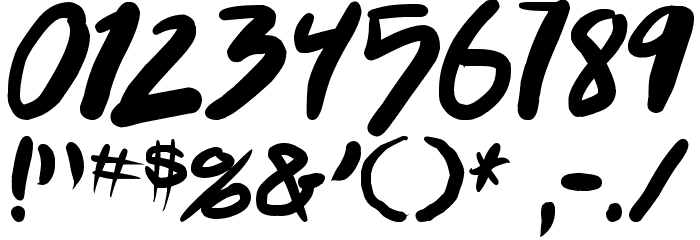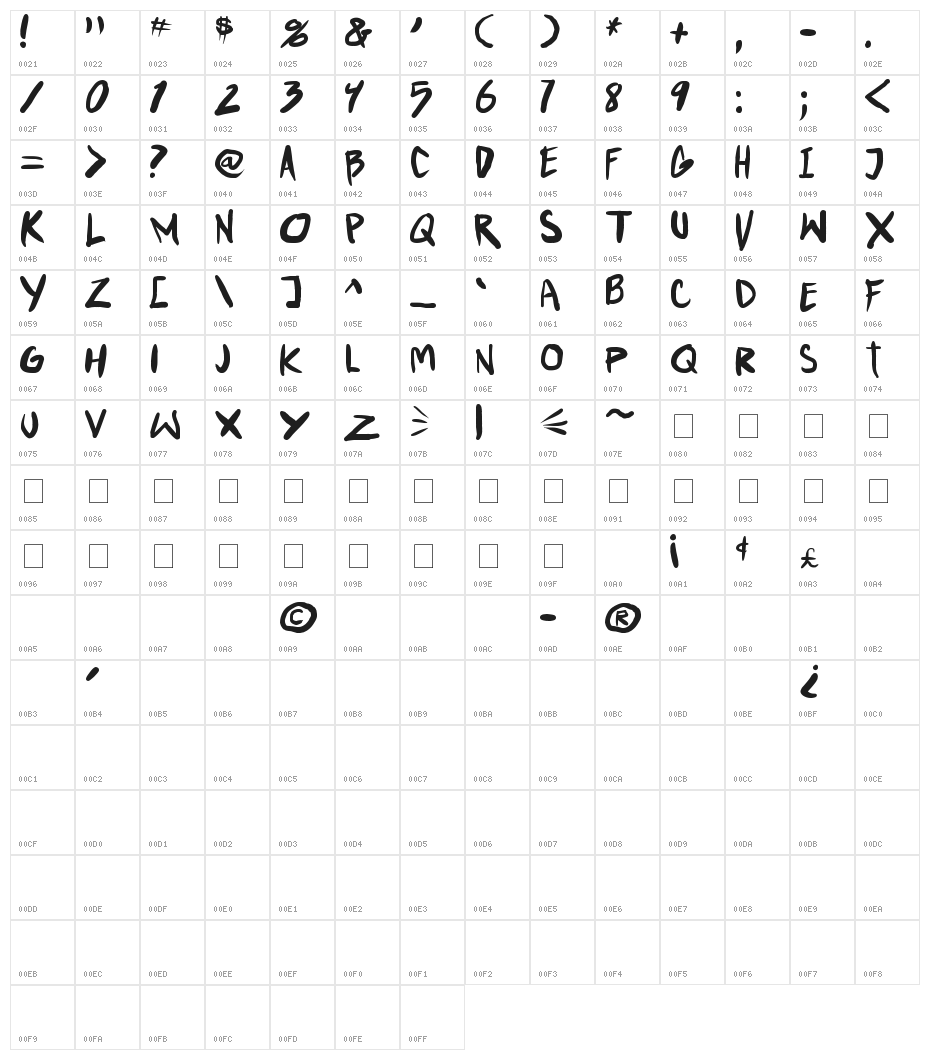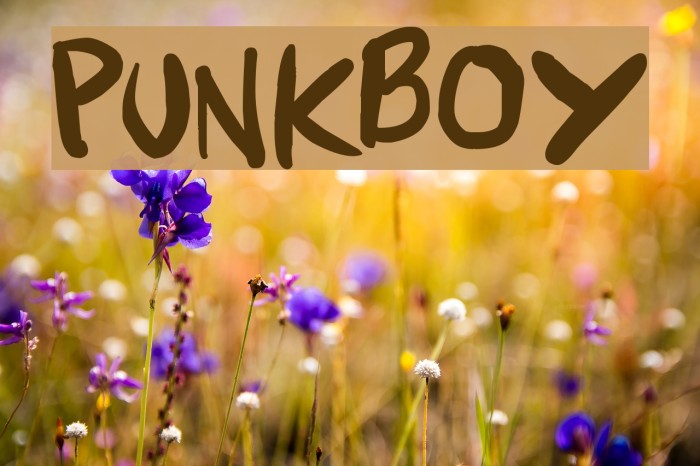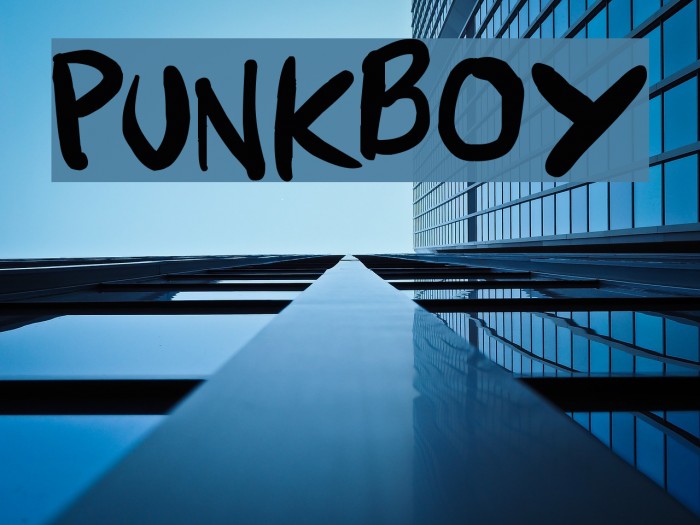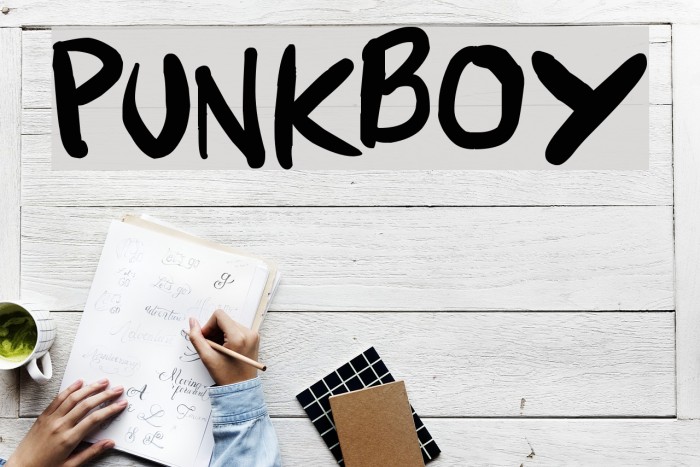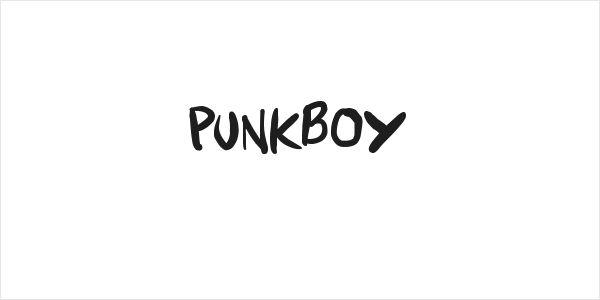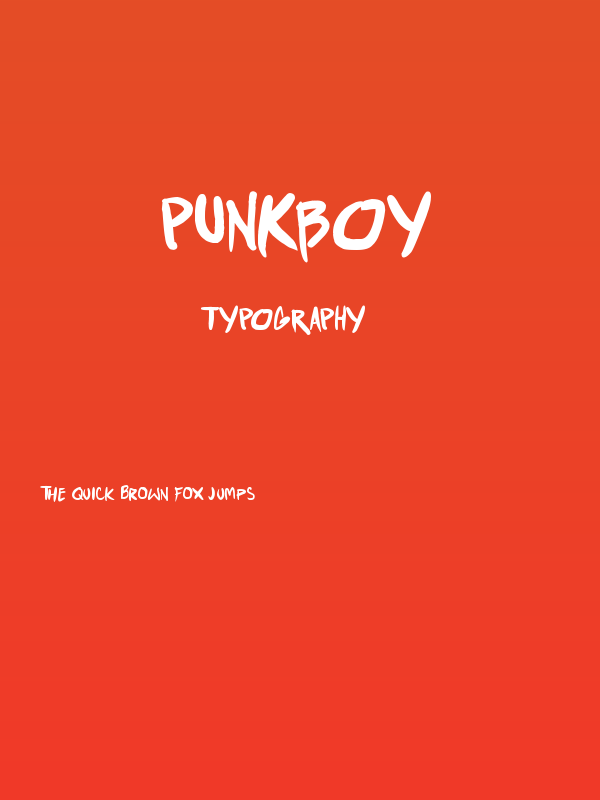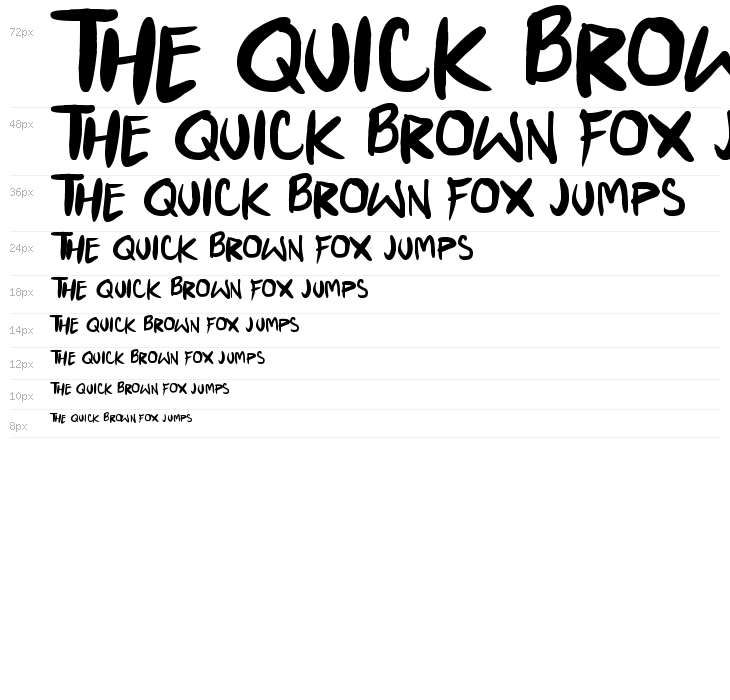
Punkboy Font
Punkboy Description
This font exudes a bold and rebellious energy, characterized by its thick, uneven strokes and dynamic, hand-drawn appearance. The letters have a raw, edgy feel, reminiscent of graffiti or street art, making it perfect for projects that require a touch of urban flair. The uppercase and lowercase letters maintain a consistent style, with exaggerated curves and sharp angles that add to its distinctive look. Numbers and special characters follow the same aesthetic, ensuring a cohesive design across all elements. The font's unique style makes it stand out, capturing attention with its expressive and unconventional form.
| Proposed Projects | Ideal for album covers, posters, streetwear branding, and urban-themed designs. |